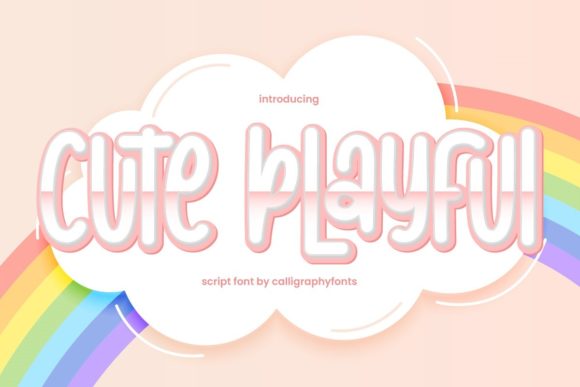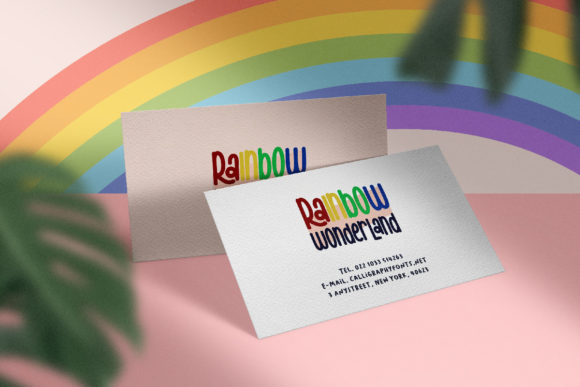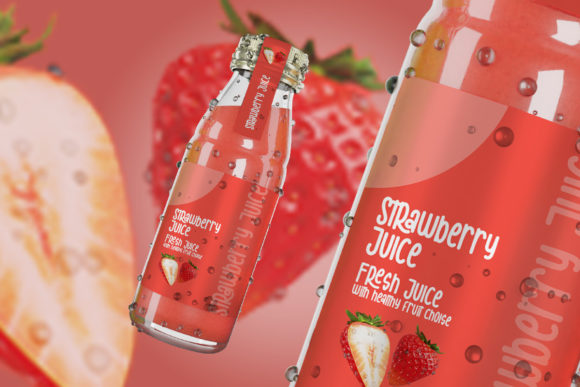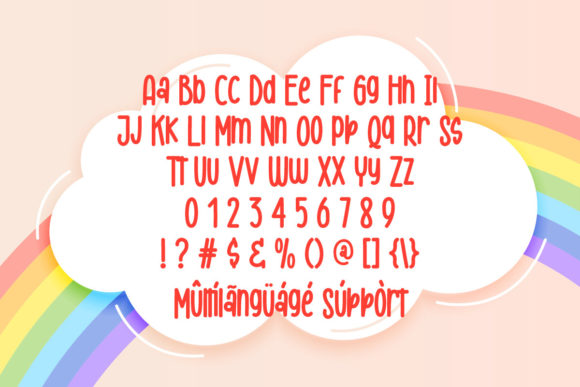
Cute Playful Font
About the Cute Playful Font
The Cute Playful Font is here to transform your projects with its distinctive character and style. Cute playful is a fun and friendly display font, perfect for various creative projects! This typeface is designed with a cartoon/ comic feel, and it is perfect for storybooks, magazines, children’s designs, and more! This font is PUA encoded which means you can access all of the glyphs and swashes with ease!
Its playful character makes it ideal for headlines, short text blocks in children’s books, logos for playful brands, and eye-catching packaging designs. However, its low x-height and decorative elements make it unsuitable for body text or UI applications requiring high readability. Avoid using it in long paragraphs or situations demanding clear legibility at smaller sizes.
Cute Playful Font pairs well with clean sans-serif fonts like Open Sans for a balanced contrast, or a more geometric sans-serif such as Montserrat for a modern feel. A simple serif like Lora can add a touch of sophistication, grounding the playful energy. Avoid pairing it with overly decorative or script fonts, which might create visual clutter.
The font’s overall personality is best described as cheerful and whimsical, conveying a sense of fun and approachability. Brands targeting a younger audience, children’s products, or projects needing a lighthearted touch will find it particularly effective.
Cute Playful Font Usage Examples
Cute Playful Font Example